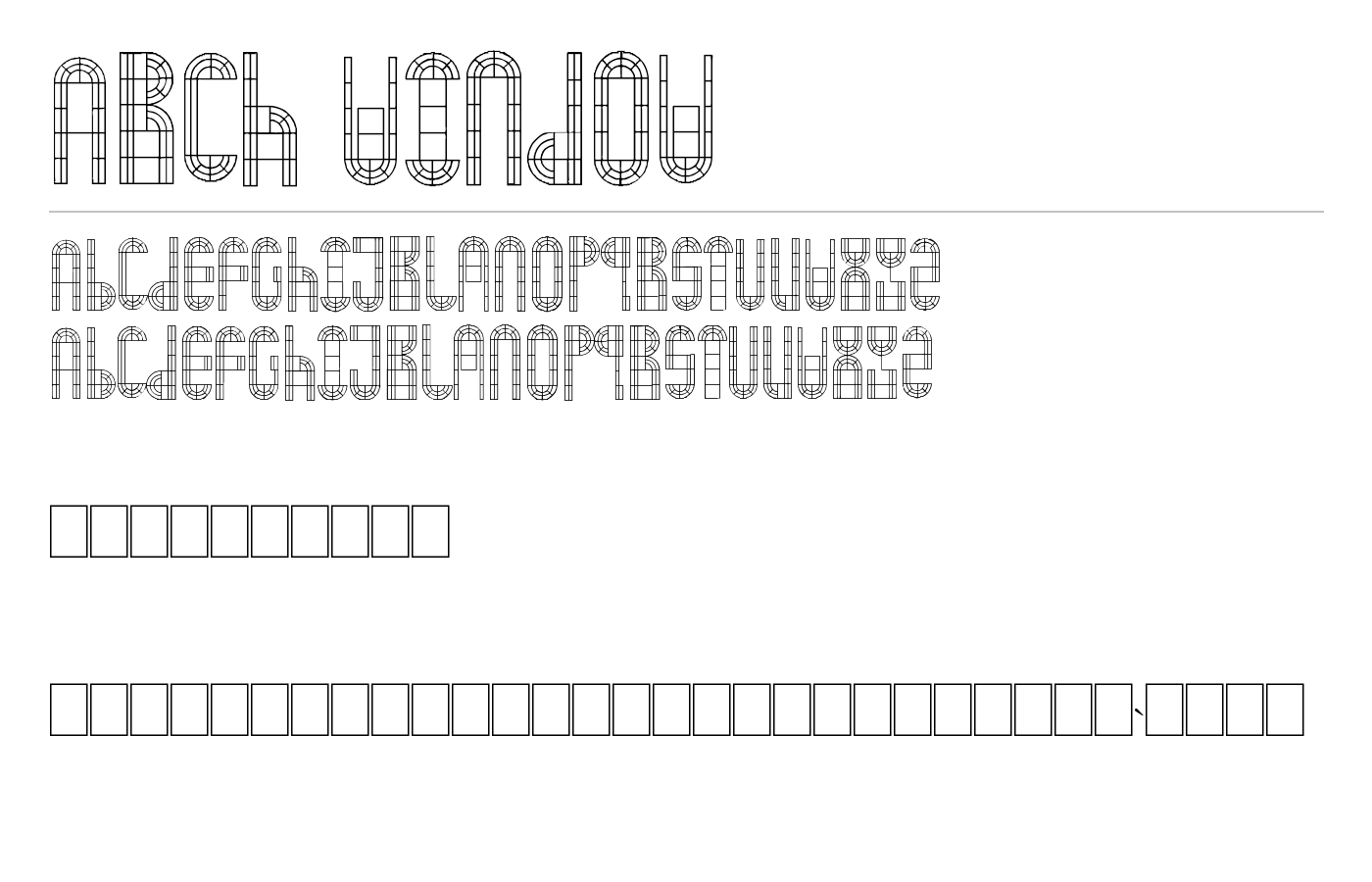
Arch Window is a distinctive decorative sans serif font characterized by its geometric, windowpane-like line work that creates an intricate, airy structure within each letter. Its high, narrow proportions and outlined stroke style give it a modern and architectural feel, making it ideal for eye-catching headlines, logos, and design projects that aim to communicate creativity and sophistication. This font works well in branding and editorial contexts where a unique, stylish impact is desired.
Arch Window Font